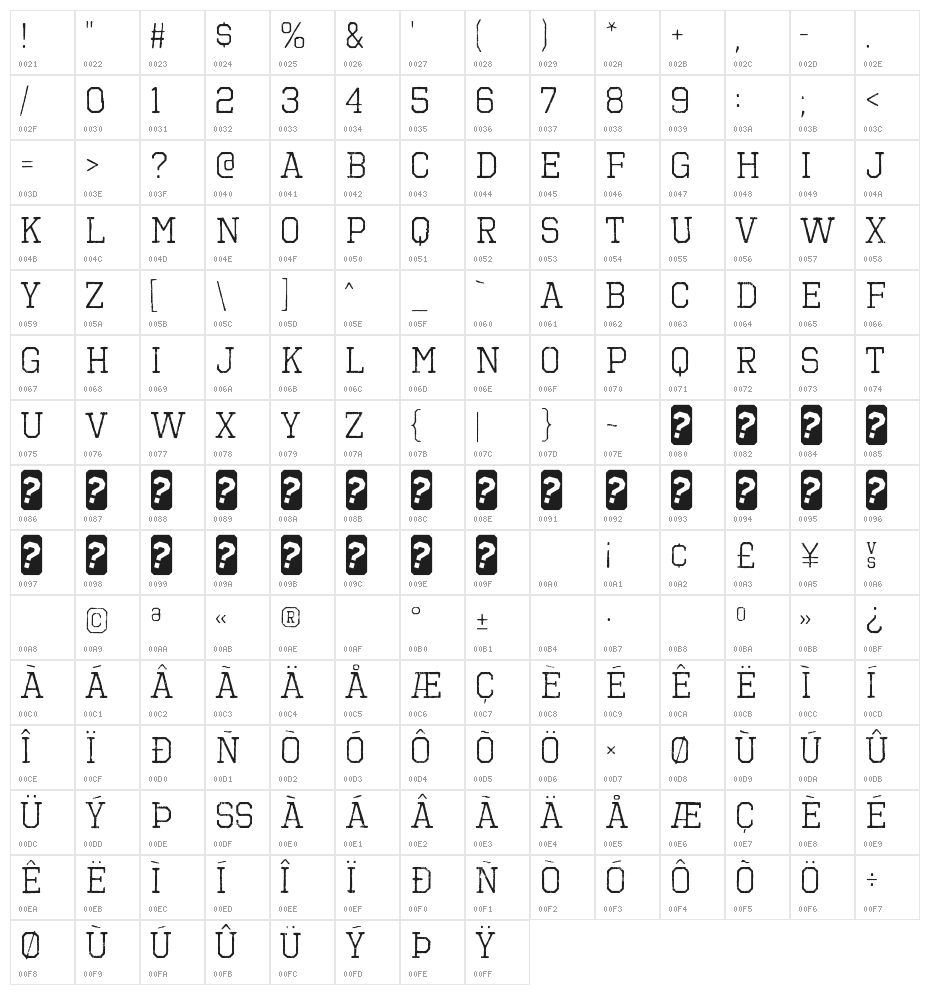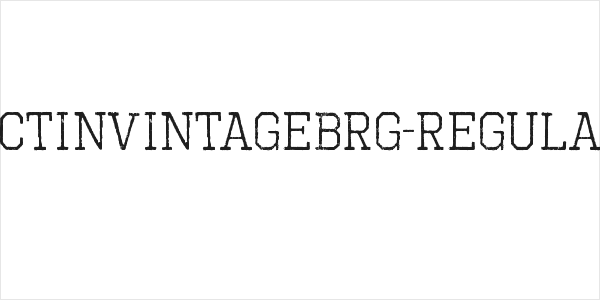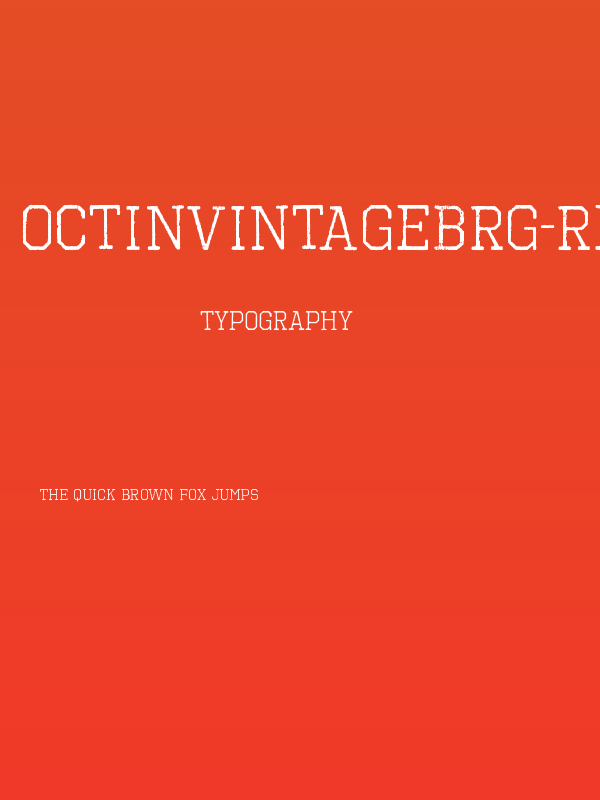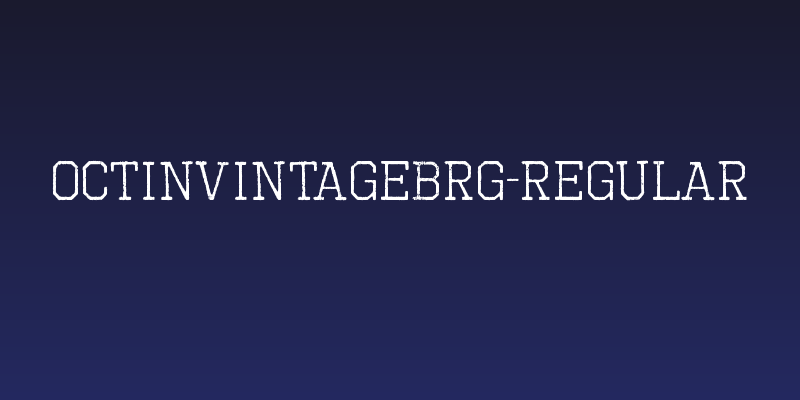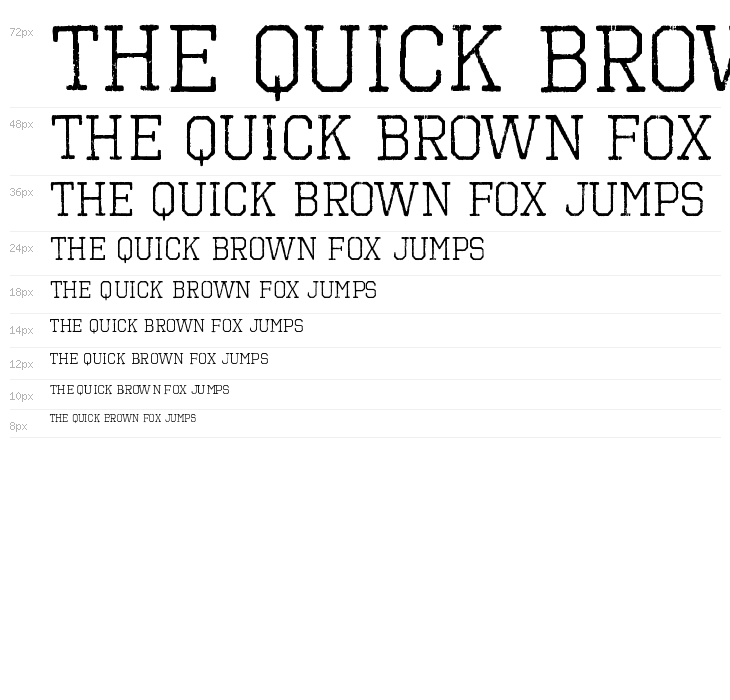
OctinVintageBRg-Regular Font
OctinVintageBRg-Regular Description
This font exudes a vintage, industrial charm with its bold, distressed appearance. Each character is designed with a rugged texture that mimics the look of aged, worn-out typefaces, giving it a unique, nostalgic feel. The uppercase letters are robust and commanding, while the lowercase letters maintain a consistent style, ensuring readability. The numerals and special characters follow the same aesthetic, making them suitable for various design applications. The font's overall appearance is reminiscent of old machinery or vintage signage, perfect for projects that require a touch of retro flair.
| Proposed Projects | Ideal for vintage-themed posters, retro branding, industrial design projects, and any creative work that requires a nostalgic touch. |